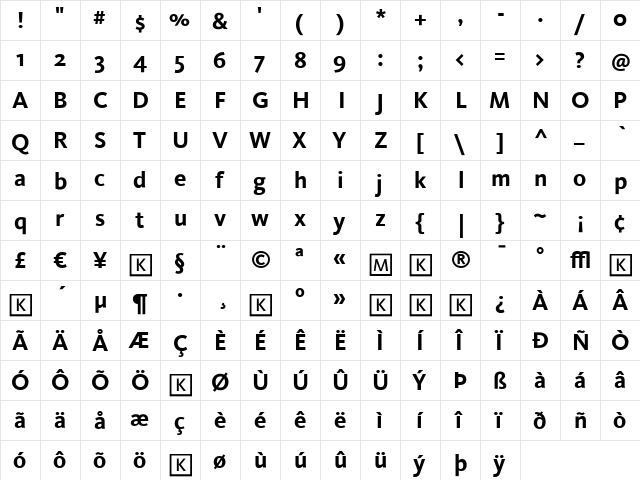
Kievit Regular Font Preview
Kievit Regular
Kievit Regular Font Details
Design Context for Kievit Typeface
Kievit is a composed and adaptable typeface that performs quietly and consistently across a wide range of design contexts.
Pro Tip: Pair Kievit with a font of contrasting weight or personality to build a more expressive typographic hierarchy.